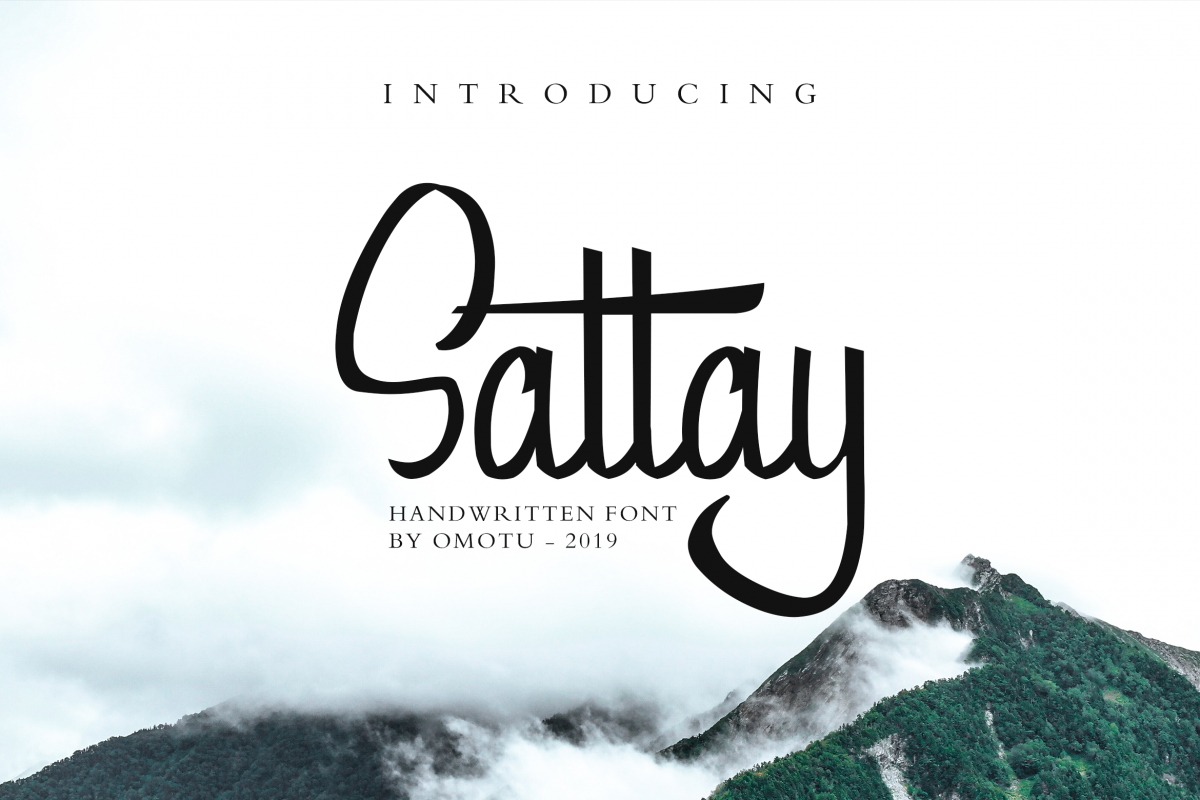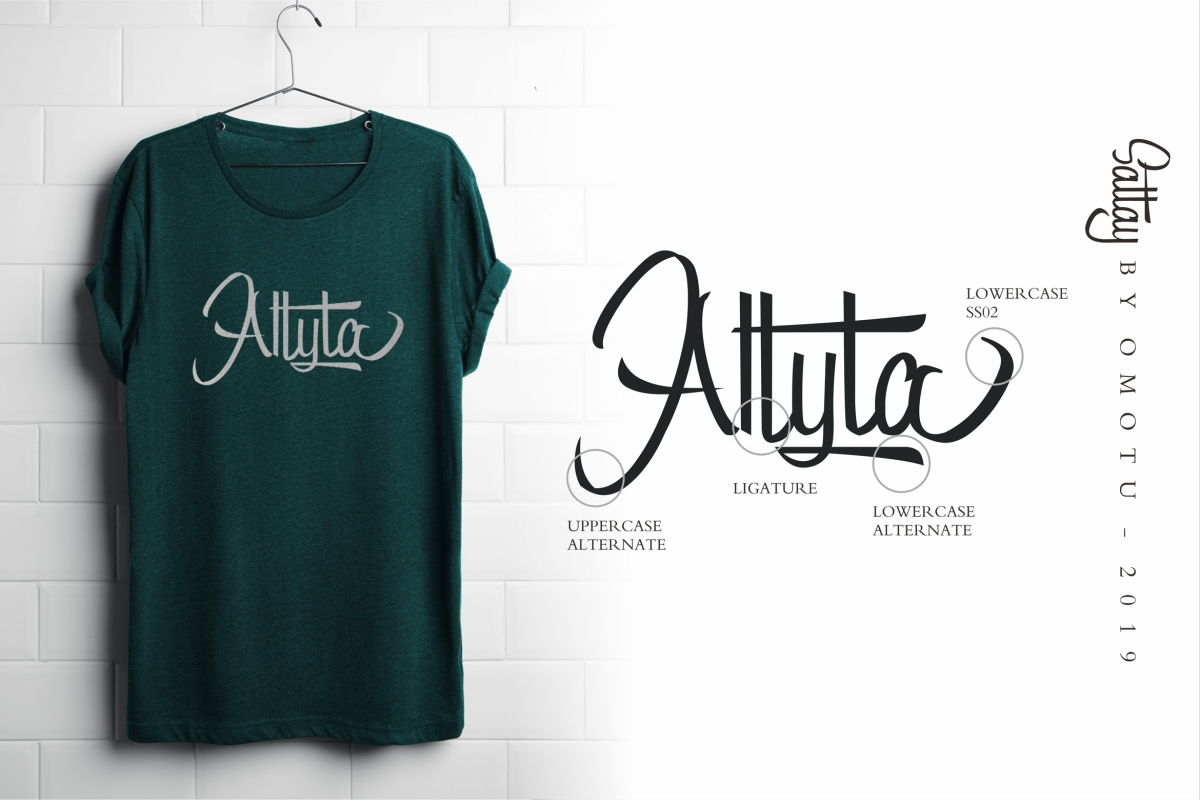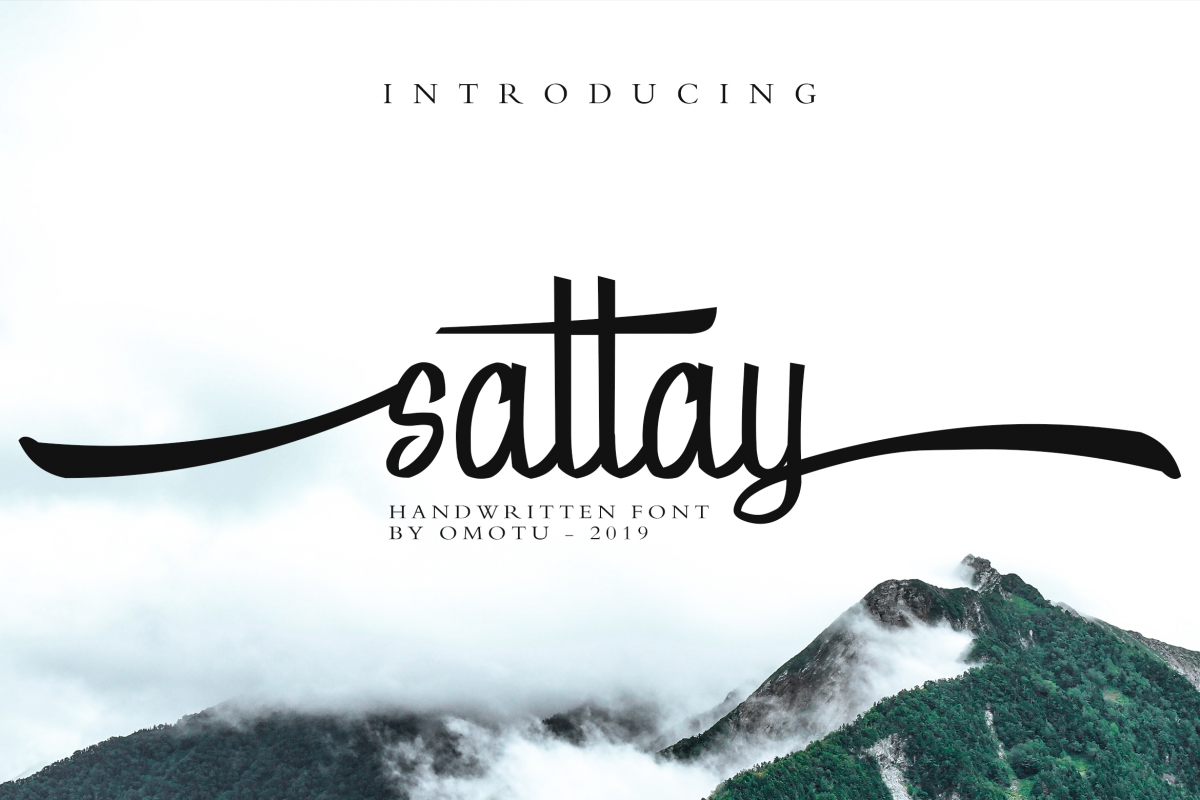
Sattay
Sattay - a new modern & fresh script with a handwritten and script style make this font looks elegant, stylish and perfect for any awesome projects that need handwriting taste.
Sattay would perfect for photography, watermark, social media posts, advertisements, logos & branding, invitation, product designs, label, stationery, wedding designs, product packaging, special events or anything that need handwriting taste.
1. Uppercase and lowercase characters
2. Supports international languages
3. Ligature & stylistic alternates for several key lowercase characters are also available
4. Editable stylistic alternate glyphs